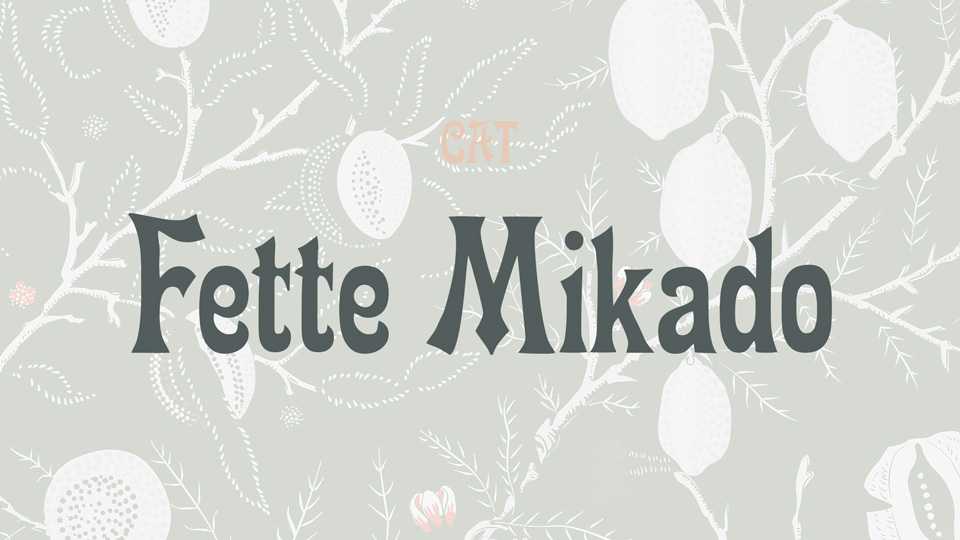
Download Fette Mikado font, a decorative vintage display typeface with an interesting fusion of ornate Victorian and faux Asian elements. It based on the Mikado font, published in in 1890.